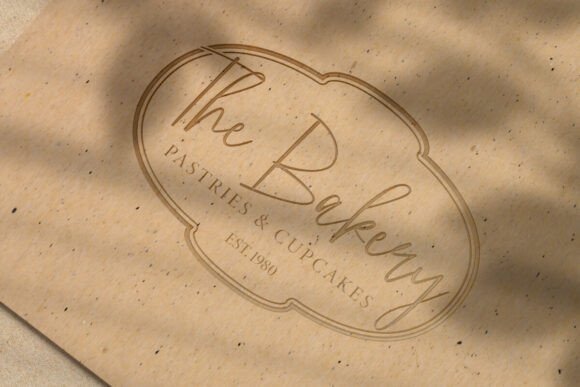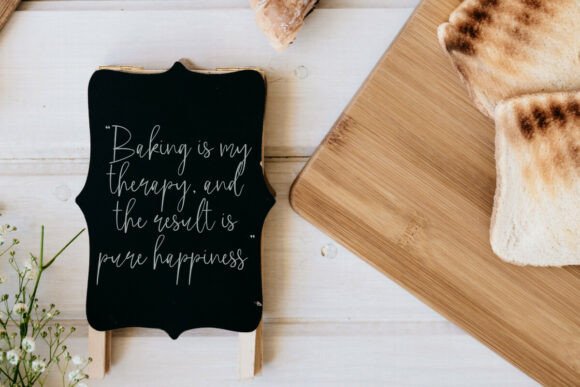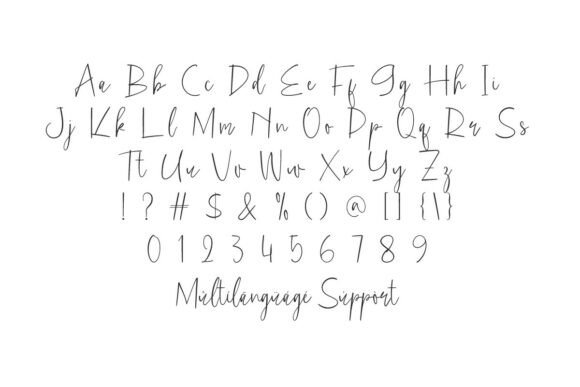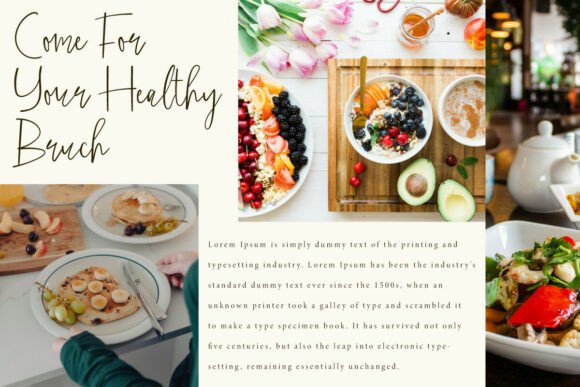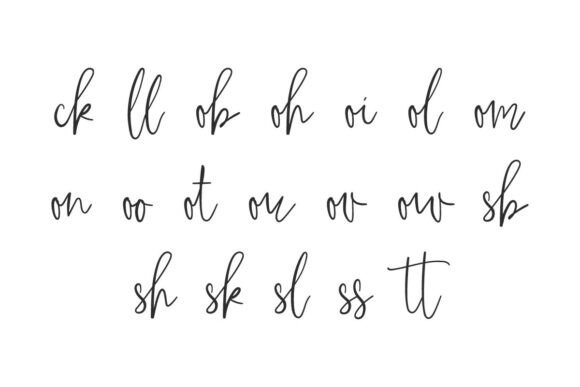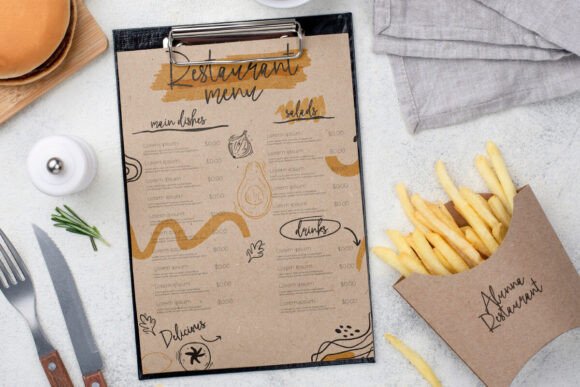
Introduction to Mushroom Soup Font
As I sat in my cozy home office, surrounded by scribbled notes and scattered design materials, I stumbled upon a font that captured my heart. The organic flow and personal touch of Mushroom Soup Font transported me to a world where typography meets elegance. This beautifully handcrafted calligraphy font from VinType Studio effortlessly blends the natural handwriting with a modern script style, creating an unmistakable charm that resonates with designers and creatives alike.
As a design resource, Mushroom Soup Font stands out for its high quality and versatility. Its thin lines and sophisticated aesthetic make it an indispensable element for high-end branding, wedding invitations, and logos. Whether you’re working on a creative project or simply looking for a unique touch, this font is sure to elevate your design game. And the best part? You can even download it for free, complete with a transparent background that allows for seamless integration into any design.
Key Features of Mushroom Soup Font
- High-quality design resource for creative projects
- Unique, hand-drawn design with a transparent background
- Includes a comprehensive character set with over 200 glyphs
- Perfect for food, cooking, and lifestyle-related designs
Honest Review: Mushroom Soup Font
I recently stumbled upon the Mushroom Soup Font, and I must say it’s a unique addition to any design project. As a designer, I’m always on the lookout for high-quality fonts that can bring an extra layer of creativity to my work. The Mushroom Soup Font is a great resource for anyone working on a creative project that requires a quirky, playful feel.
One of the things that stands out about this font is its transparent background, which makes it easy to use on various backgrounds and designs. This feature alone makes it a valuable design resource for designers of all levels.
Here are some of the things that work well with the Mushroom Soup Font:
- ✨ Unique and quirky design that’s perfect for creative projects
- ✨ High-quality vector format for crisp and clear results
- ✨ Transparent background for easy use on various backgrounds
However, I did encounter some limitations with this font:
- ⚠️ Limited character set, which may not be suitable for longer texts
- ⚠️ Not ideal for formal or professional projects, due to its playful nature
Overall, I’m impressed with the Mushroom Soup Font, and I think it’s a great addition to any designer’s toolkit. While it may have some limitations, its unique design and high-quality vector format make it a valuable resource for creative projects.
Tips for Getting the Most Out of Mushroom Soup Font
Use the Mushroom Soup Font in conjunction with a high-quality image or background to create a visually appealing design. Experiment with different font sizes and colors to add emphasis and hierarchy to your text. With a free download, you can try out the font in various creative projects without any limitations.
The Mushroom Soup Font is ideal for creative projects that require a unique and eye-catching font. Use it for blog posts, social media graphics, or marketing materials to add a touch of personality and style. With its high-quality design and transparent background, you can easily layer the font over images or other design elements to create a professional-looking design.